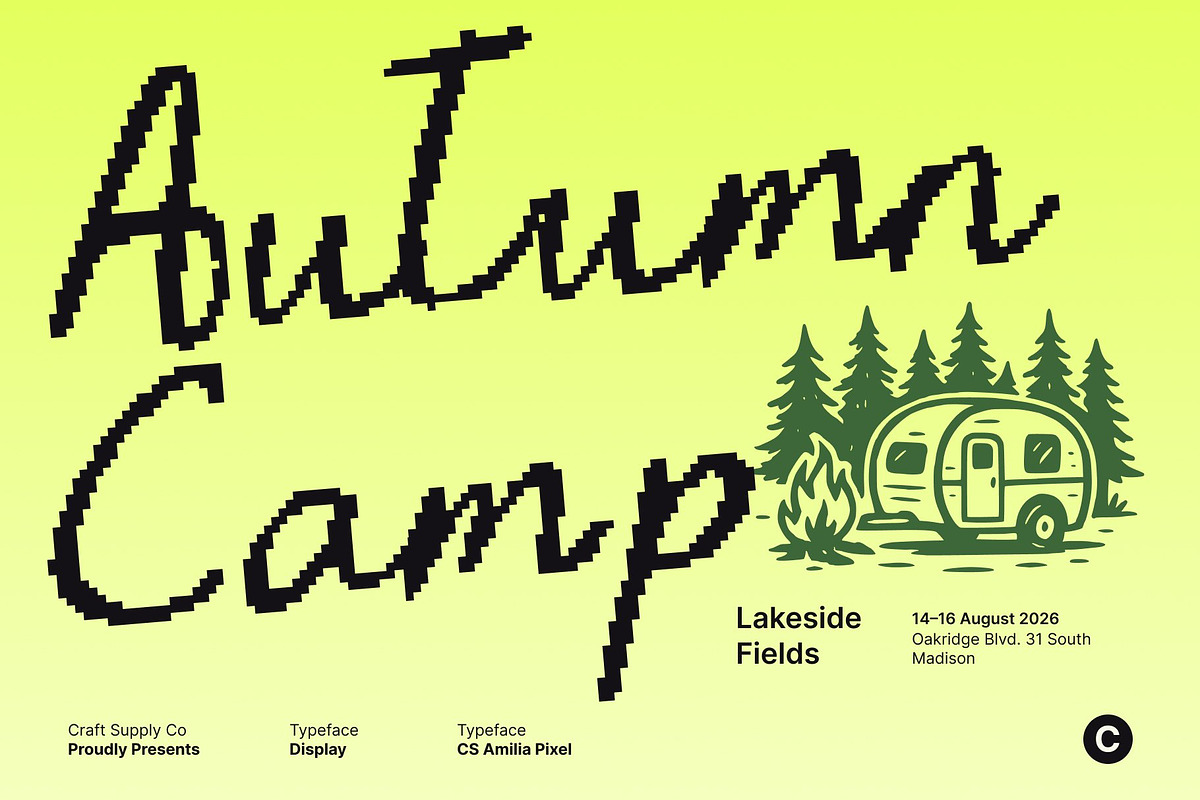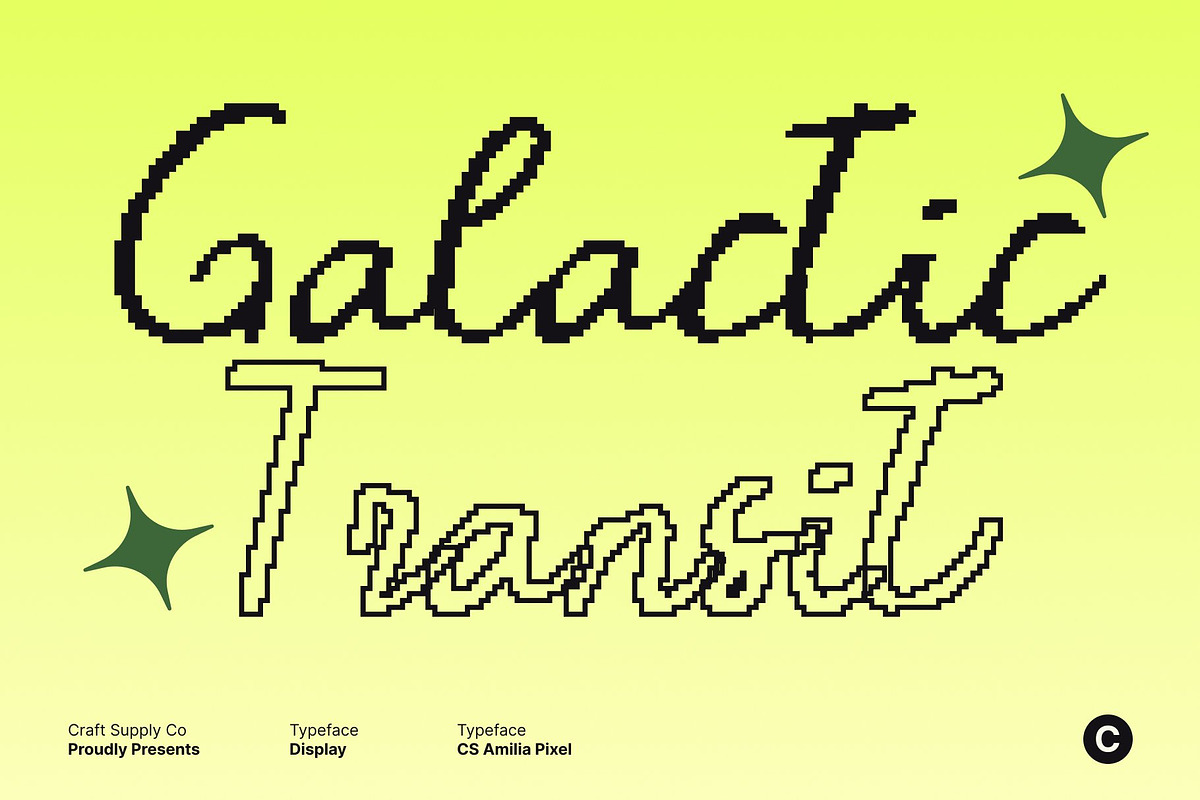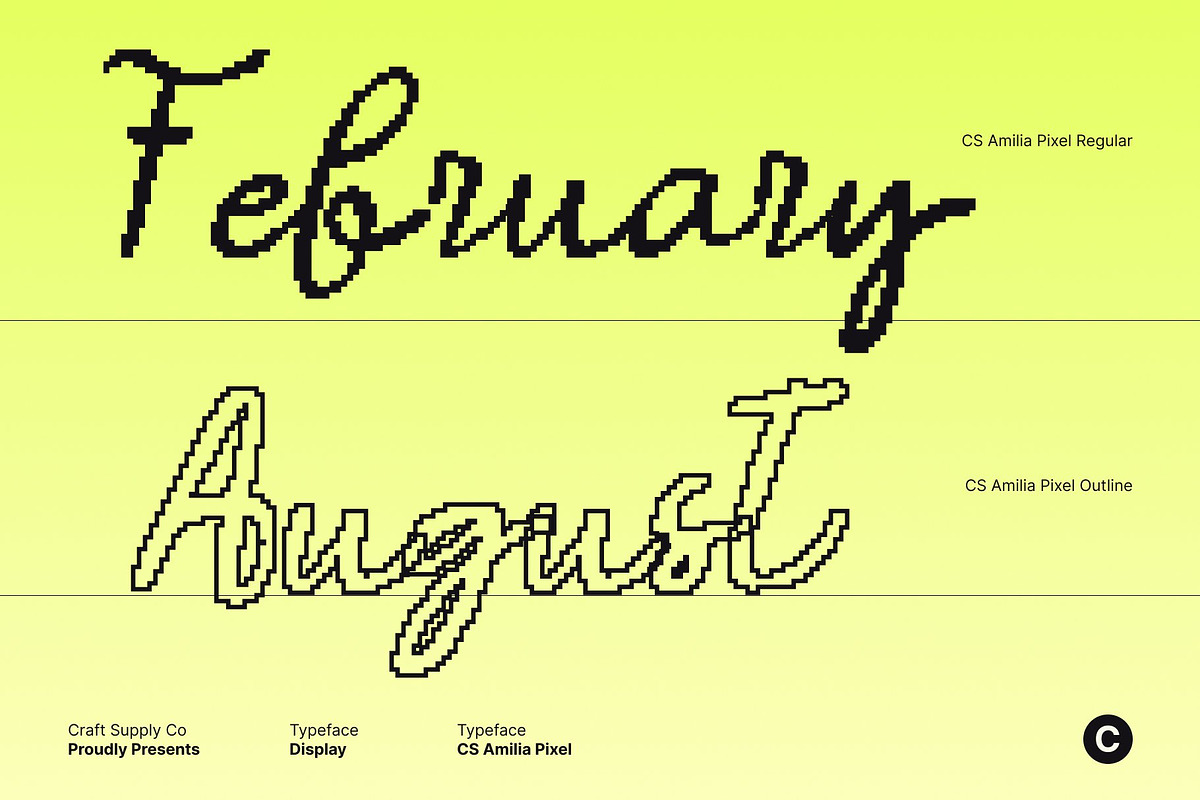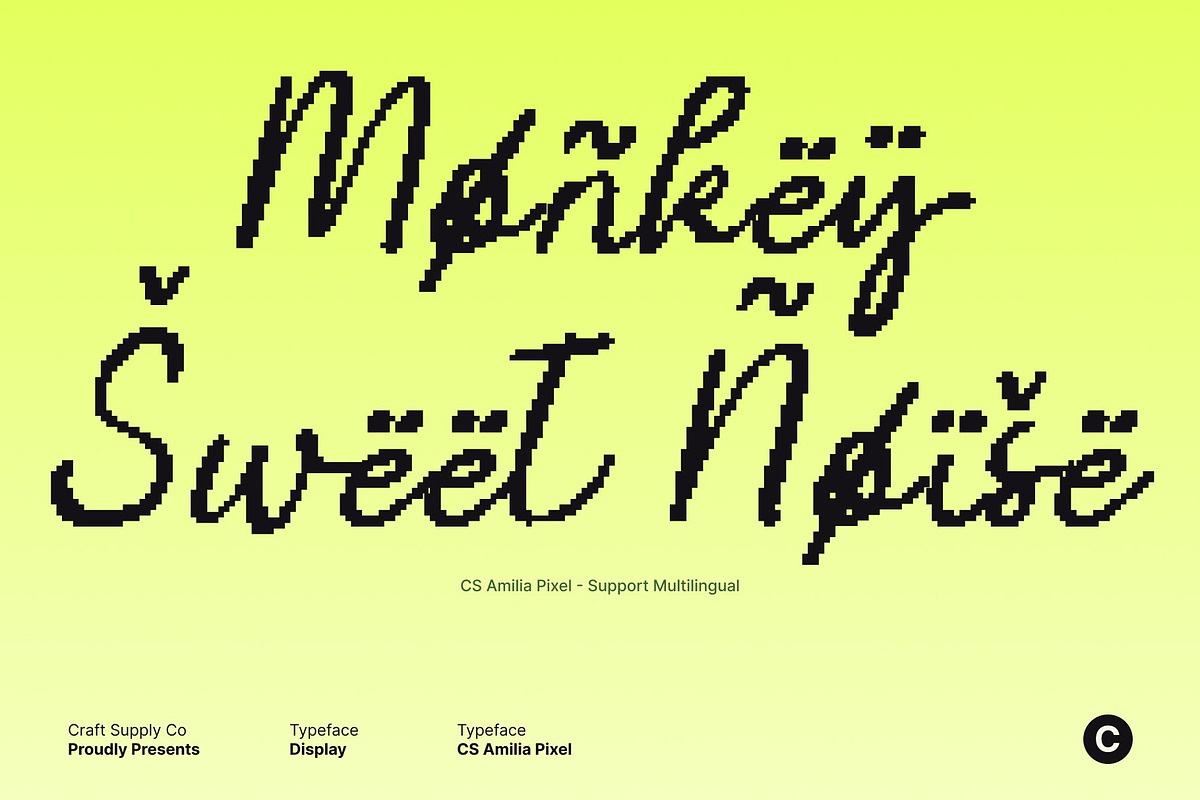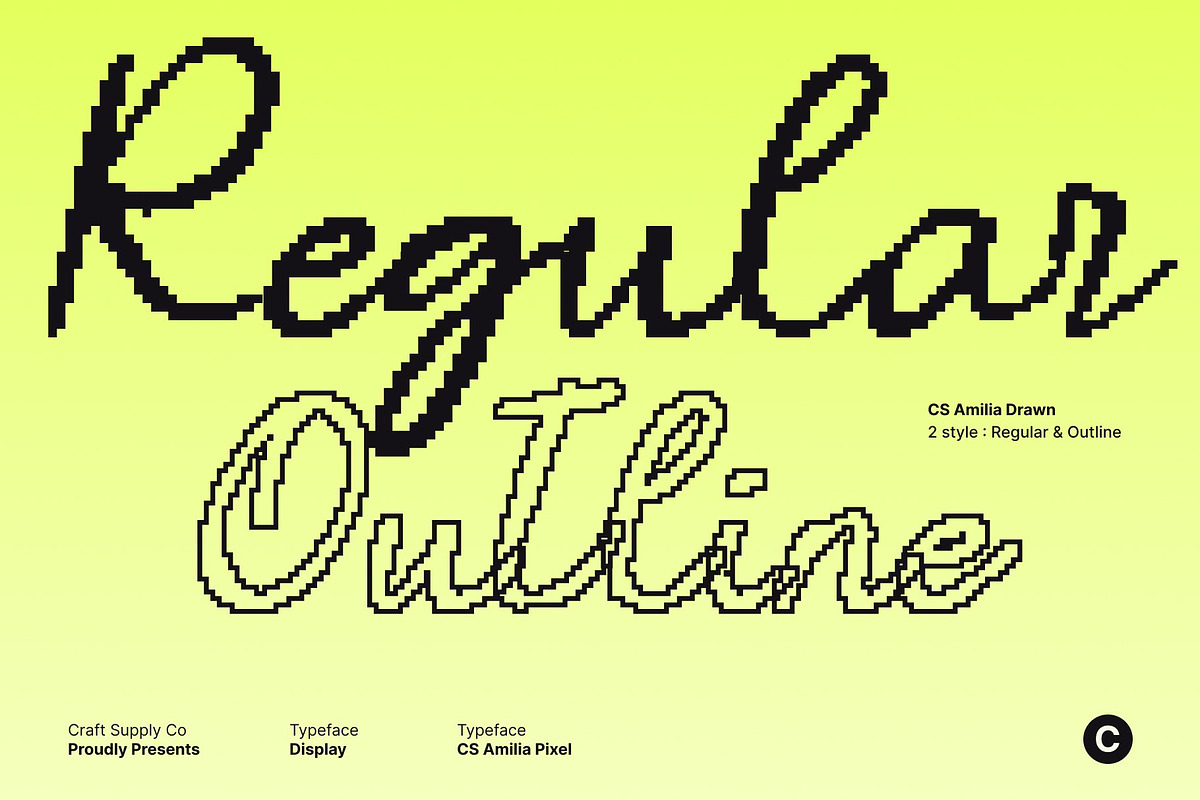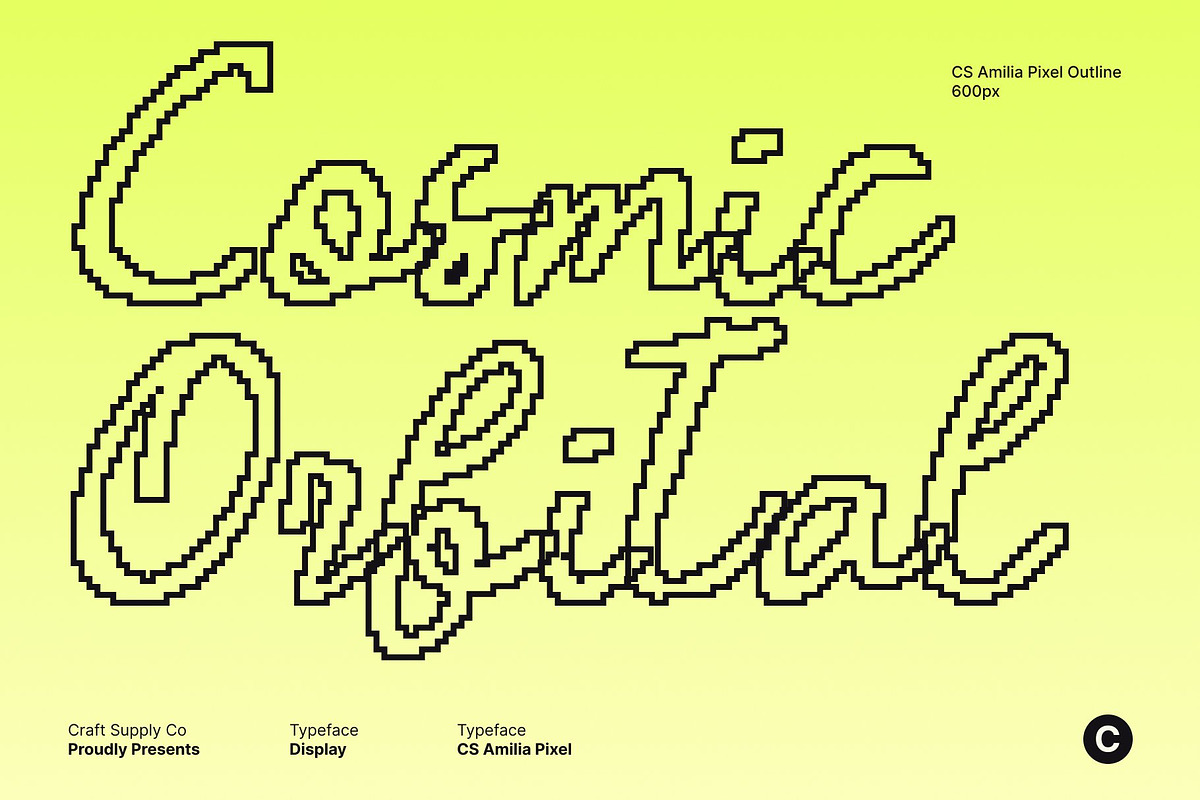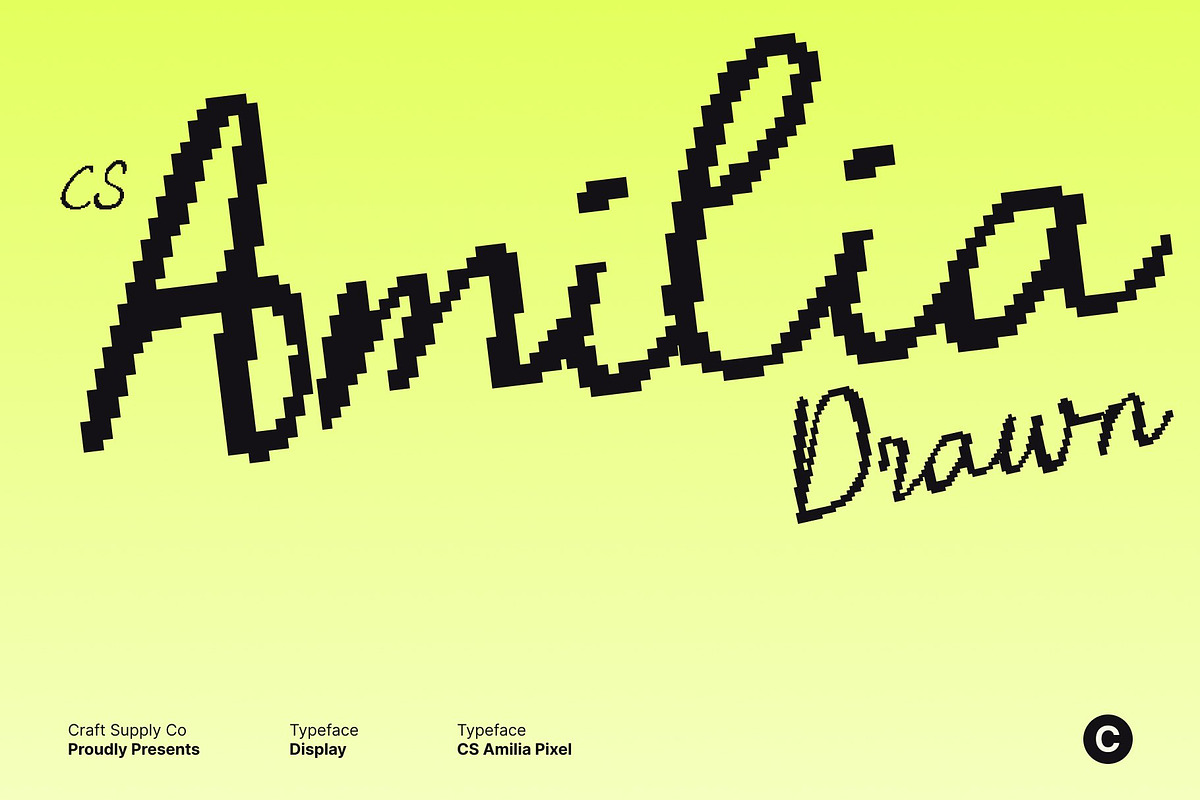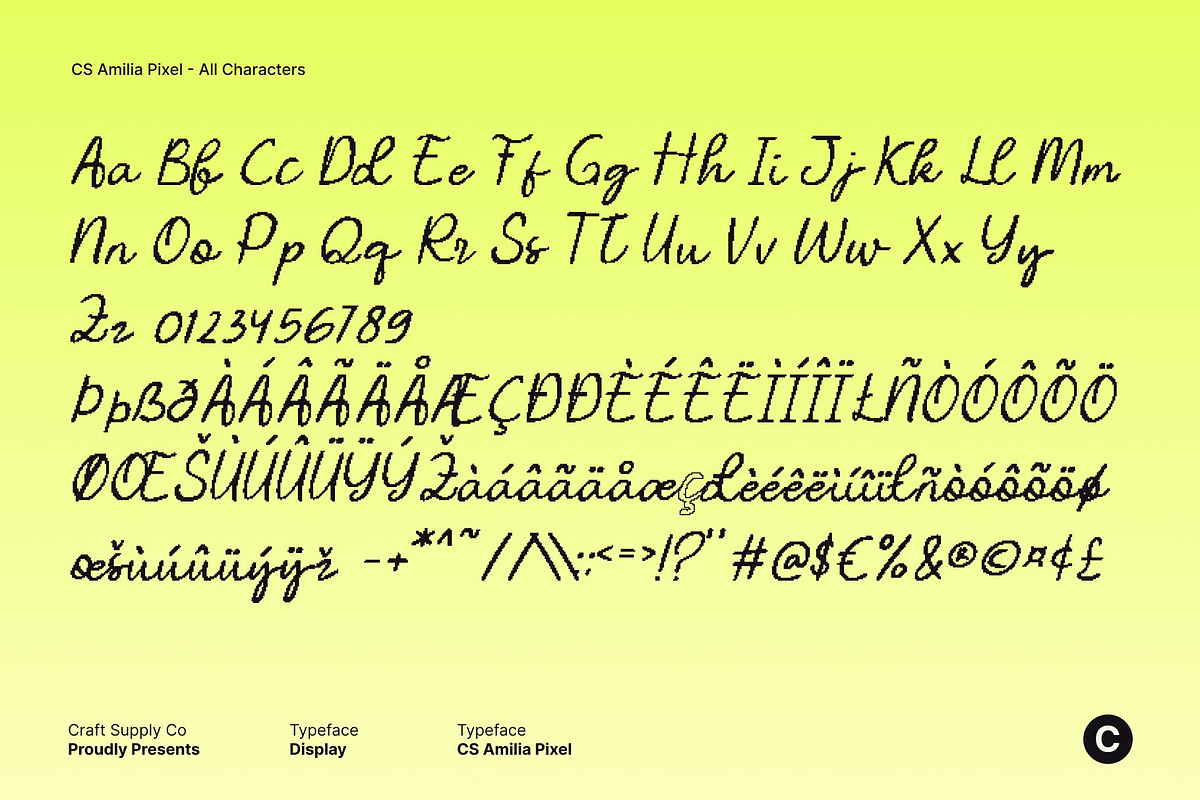
CS Amilia Pixel
CS Amilia Pixel – Artistic Handwritten Script with Elegant Digital Flourishes
Expressive Handwritten Strokes with Pixel Charm This is an artistic handwritten script font that blends fluid, expressive strokes with a subtle pixel character. Its flowing letterforms feel natural and warm, while the pixel styling introduces a unique digital texture that makes the font stand out. This combination creates a script that feels handcrafted yet modern, perfect for expressive and creative designs.
Elegant Swashes with a Digital Twist The beauty of this font lies in its stylish swashes and decorative flourishes. These graceful details add sophistication and visual rhythm to every word. Enhanced by pixel-inspired construction, the flourishes feel distinctive and artistic, giving designs a refined look with a modern, digital edge.
Perfect for Branding and Signature-Style Logos This font is ideal for branding projects that seek elegance with personality. Its handwritten flow brings authenticity and warmth, while the pixel touch adds uniqueness. It works beautifully for logos, signatures, beauty brands, boutique identities, fashion labels, and lifestyle projects that want to feel personal yet visually striking.
Ideal for Invitations and Creative Displays With its romantic movement and decorative finesse, shines in invitations, wedding stationery, greeting cards, social media graphics, and creative posters. The blend of elegant script and pixel styling adds emotional depth and artistic flair, making every design feel special, expressive, and memorable.
- CS Amilia Pixel Regular
- CS Amilia Pixel Outline